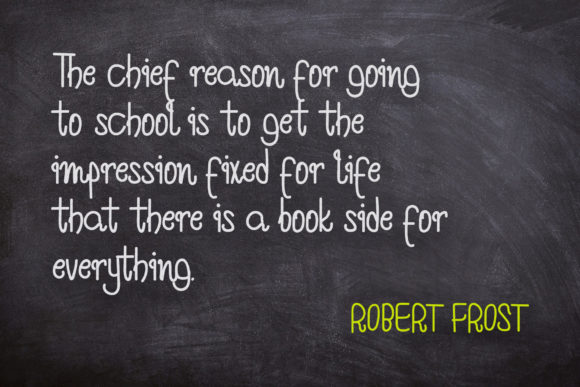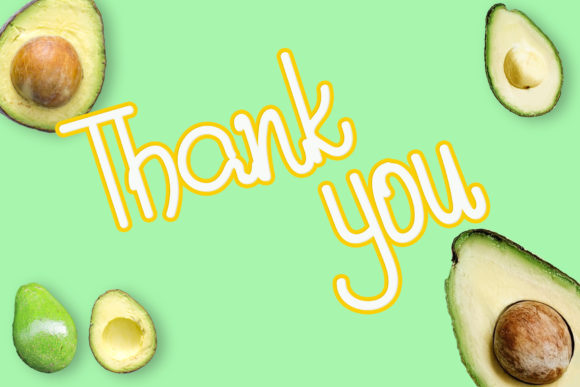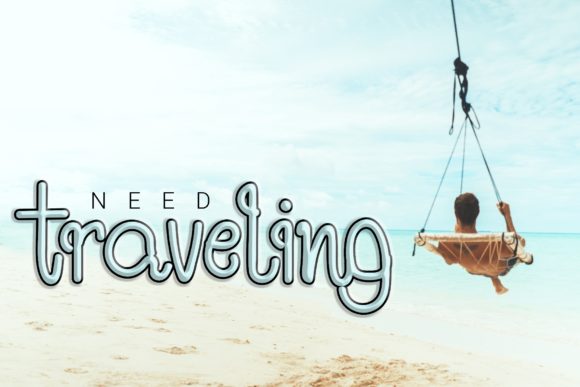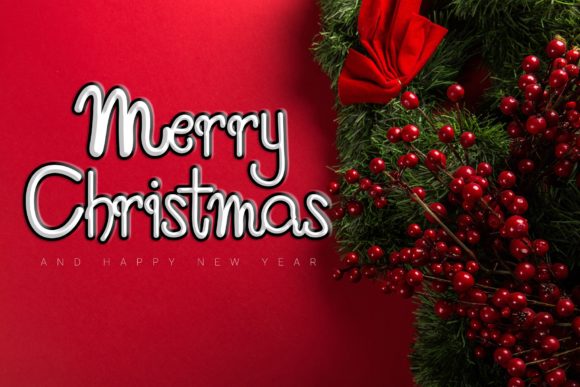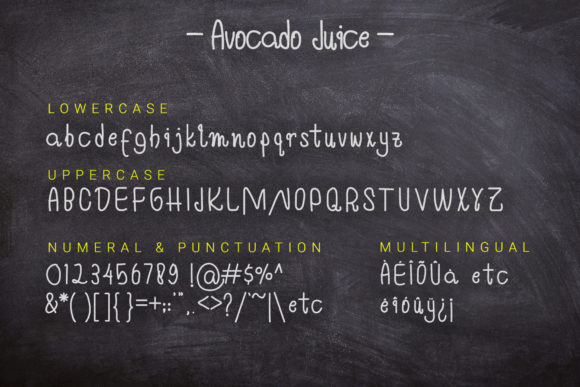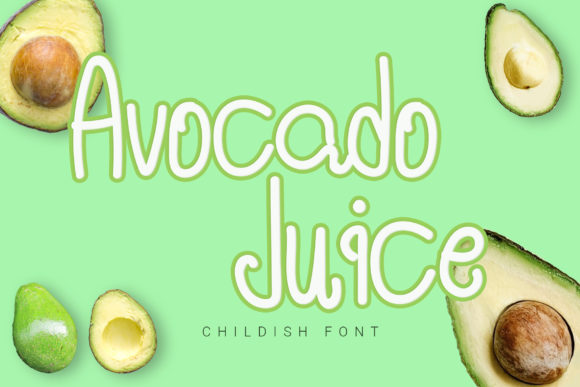
The Sweet Charm of Avocado Juice Font: A Designer’s Delight
I’ll never forget the time I was working on a project for a children’s brand, and I was struggling to find the perfect font to match their playful and whimsical vibe. The client wanted something that would appeal to kids and parents alike, but I was coming up blank. That’s when I stumbled upon Avocado Juice Font, and it was love at first sight! 💕
This sweet, soft hand-lettered script has been a game-changer for my design projects, and I’m excited to share its charm with you. With its playfully rounded characters, Avocado Juice is the perfect font for creating stunning kids’ art, and I’m confident it will become a favorite in your design toolkit too!
- ✅ So easy to use: Avocado Juice is a plug-and-play font that instantly adds a decorative touch to your designs.
- ✅ Authentic feel: The hand-lettered script has a genuine, homemade feel that’s perfect for creating unique and eye-catching designs.
- ✅ Versatile: Use it for social media posts, greeting cards, posters, and more – the possibilities are endless!
- ✅ Kid-friendly: The playful and rounded characters make it an excellent choice for kids’ projects, from educational materials to party invitations.
- ⚠️ Limited use in formal contexts: Avocado Juice is a highly decorative font, so it’s best suited for creative and playful projects rather than formal or professional ones.
- ⚠️ May not work well in small sizes: As with many script fonts, Avocado Juice can become tricky to read in very small sizes, so it’s best used in larger formats.
The Story Behind Avocado Juice: A Designer’s Inspiration
Avocado Juice was created with the intention of capturing the playful spirit of childhood. Its designer, inspired by the joy of simple pleasures like sipping fresh juice on a sunny day, aimed to bottle that feeling in a font. The result is a typeface that’s both fun and charming, perfect for bringing a smile to your audience’s faces.
Q: What makes Avocado Juice Font unique?
A: Avocado Juice Font stands out with its sweet, soft hand-lettered script and playfully rounded characters, making it perfect for kids’ art and creative projects.
Q: Is Avocado Juice easy to read?
A: Avocado Juice is designed to be legible, especially in larger formats. However, as with many script fonts, it may become less readable in very small sizes.